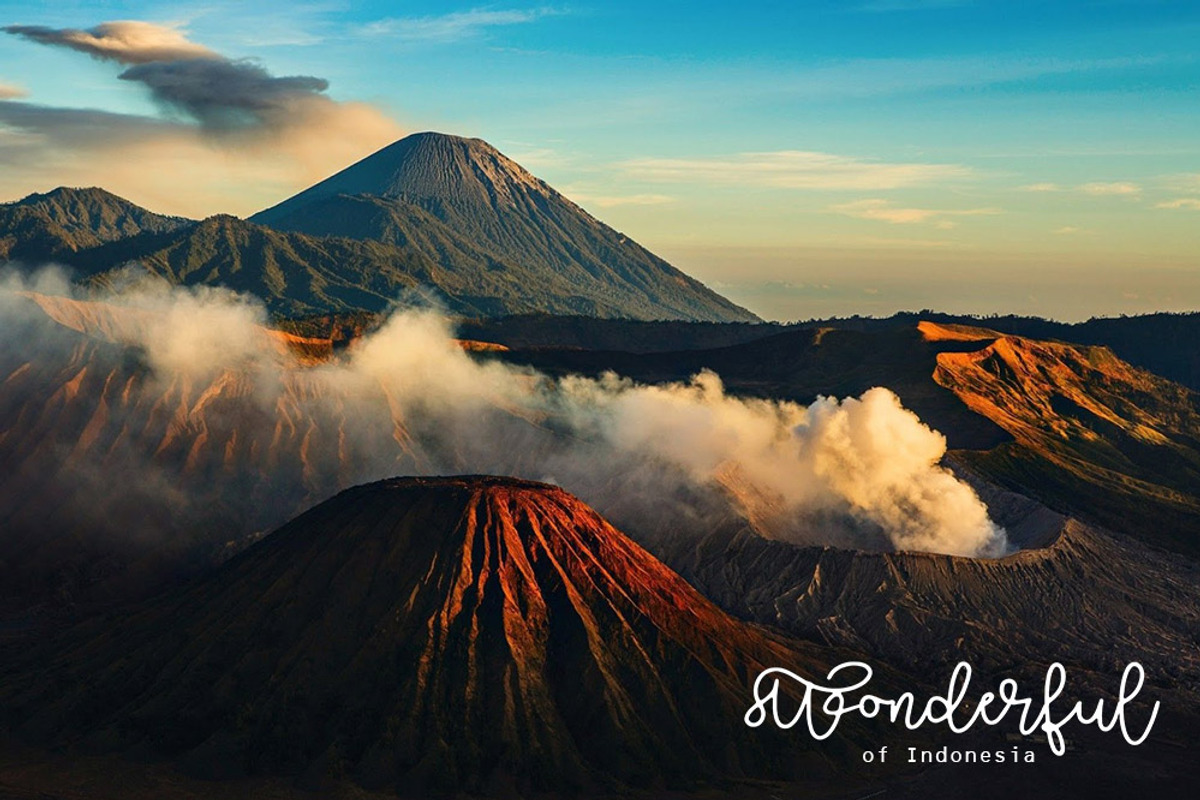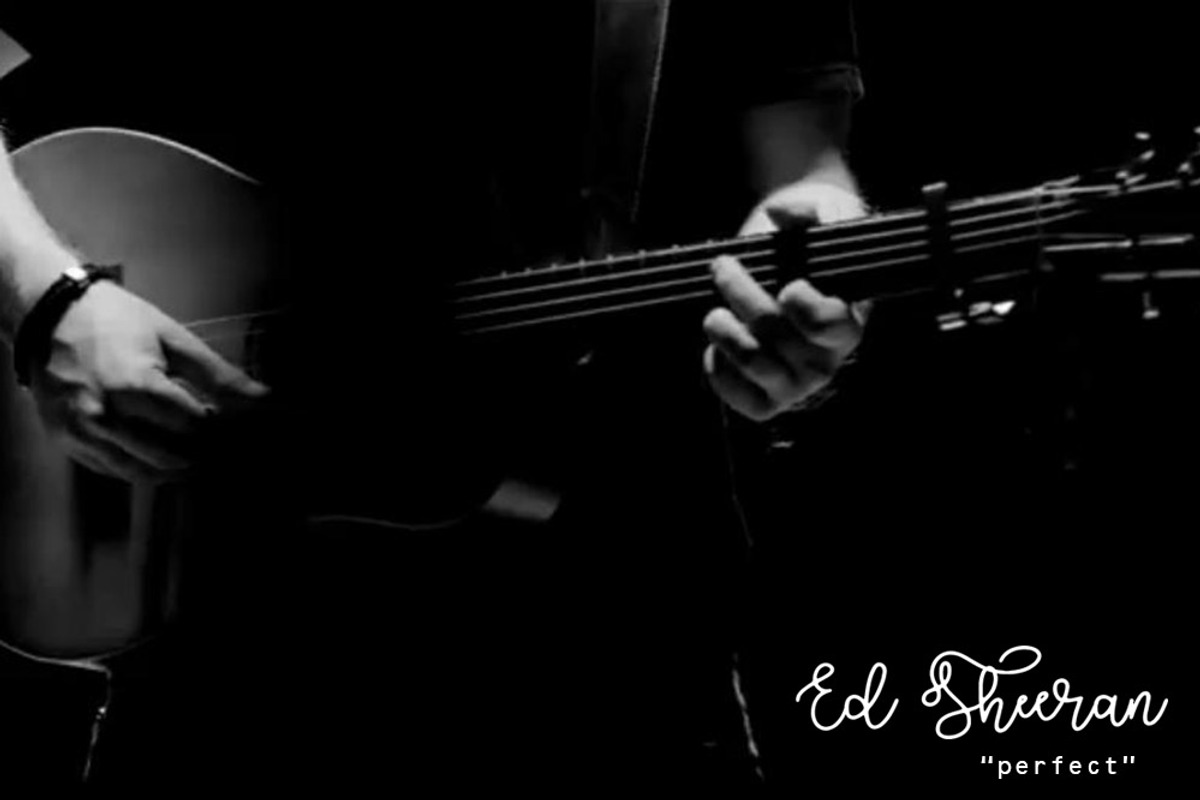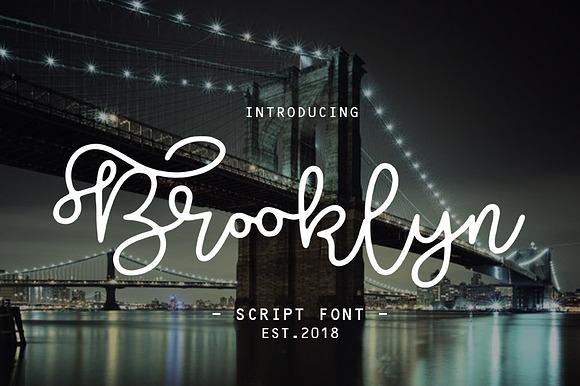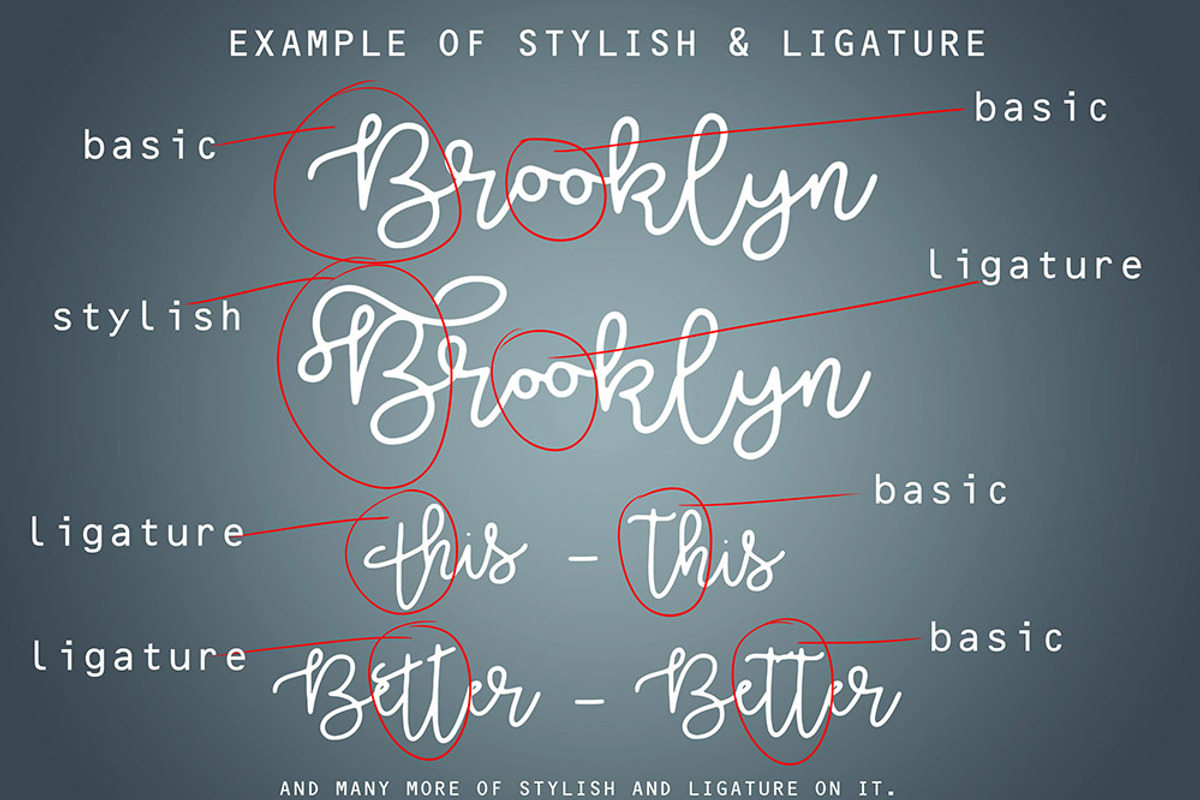
Brooklyn script font
Hello, everyone. introducing my latest product brooklyn script font. Latest script fonts are girly and easy to use into many products for your design. this font has many features in it. available in OTF and TTF formats. and this is a feature in this font:
- and this is a feature in this font: basic stylish ligature otf ttf uppercase lowcase numeral & punctuations enjoy it.
Why Brooklyn script font is worth a look
Brooklyn script font by fluffyartstudio fits naturally into Branding, posters, packaging, typography.